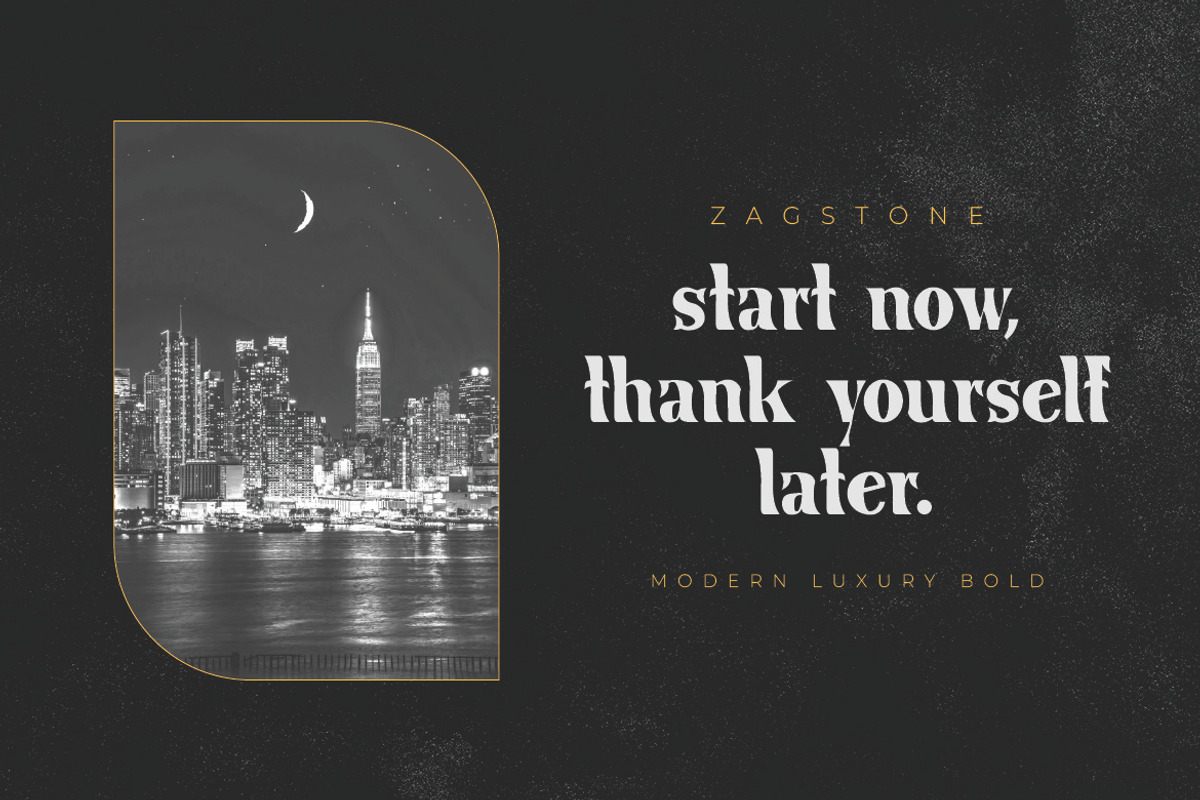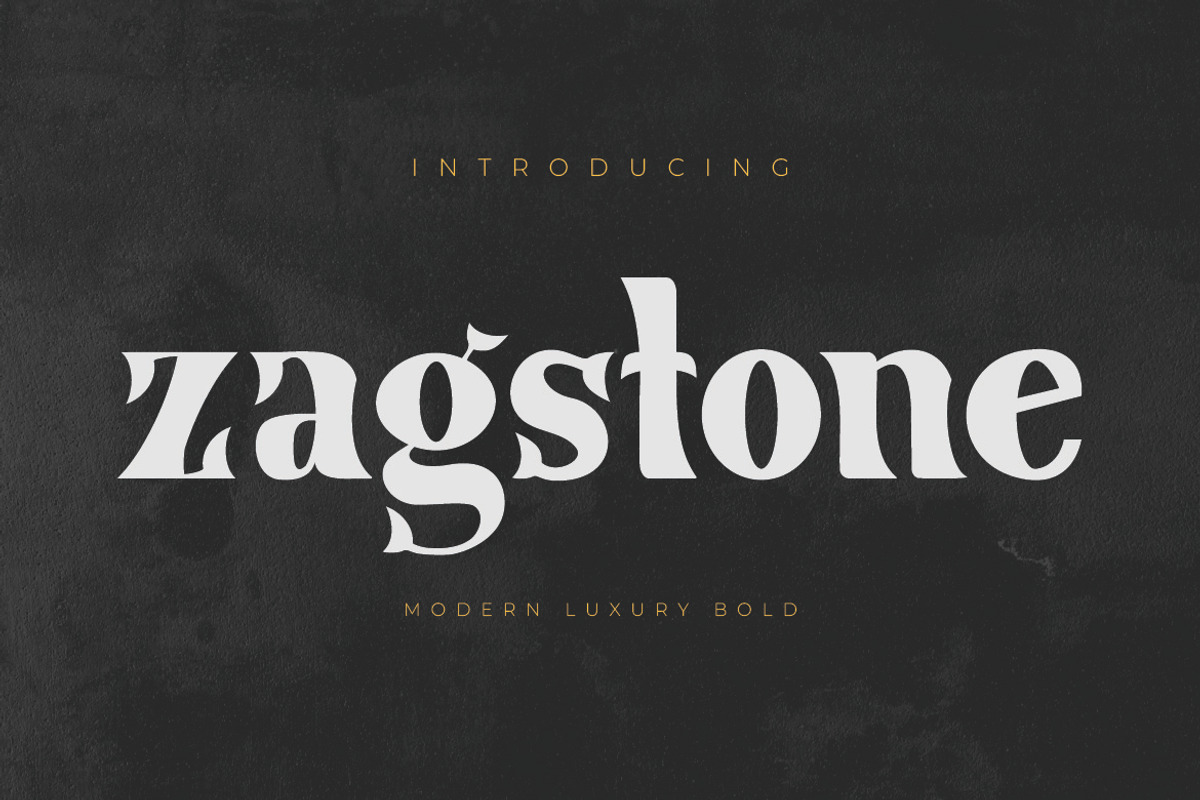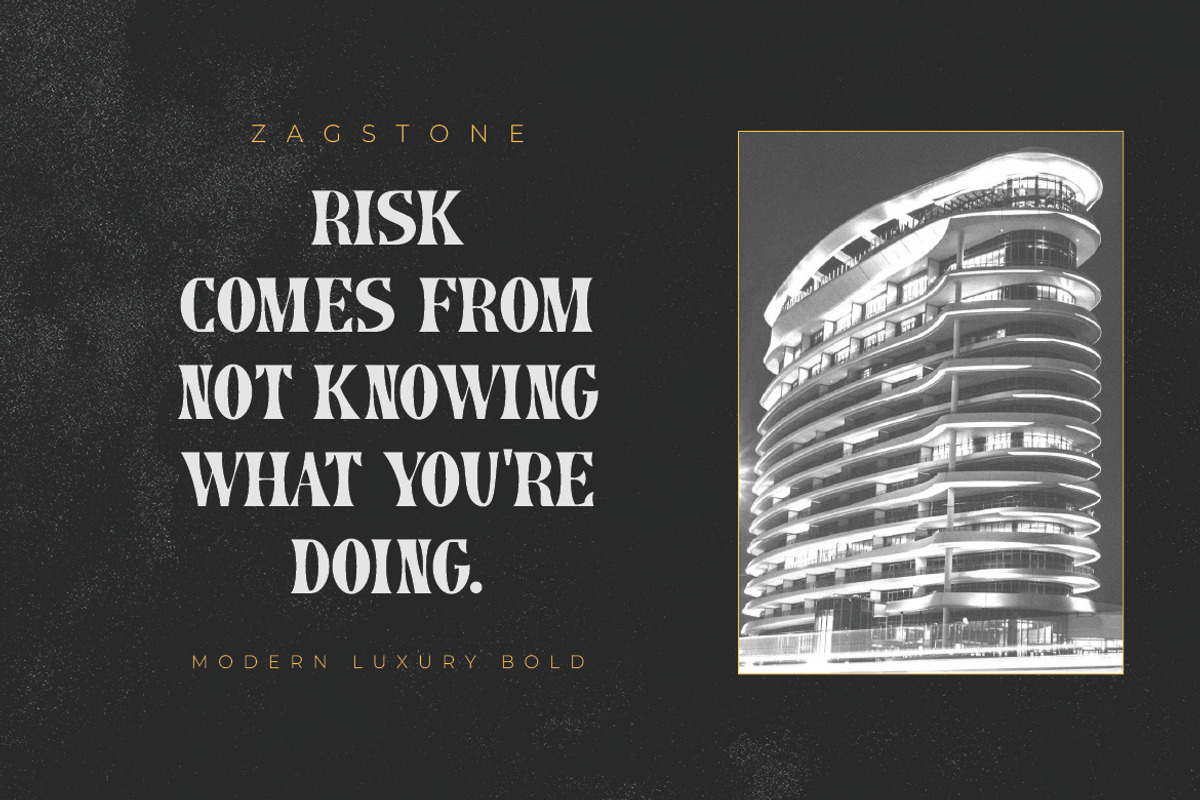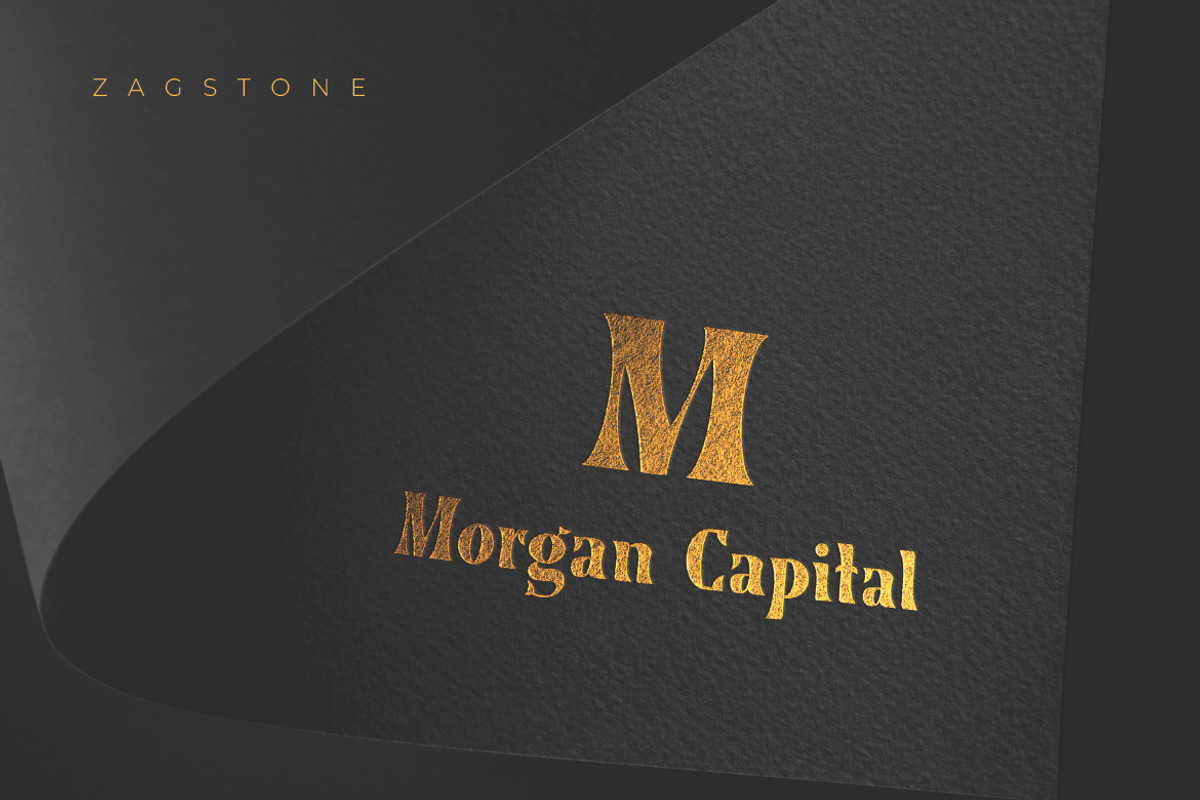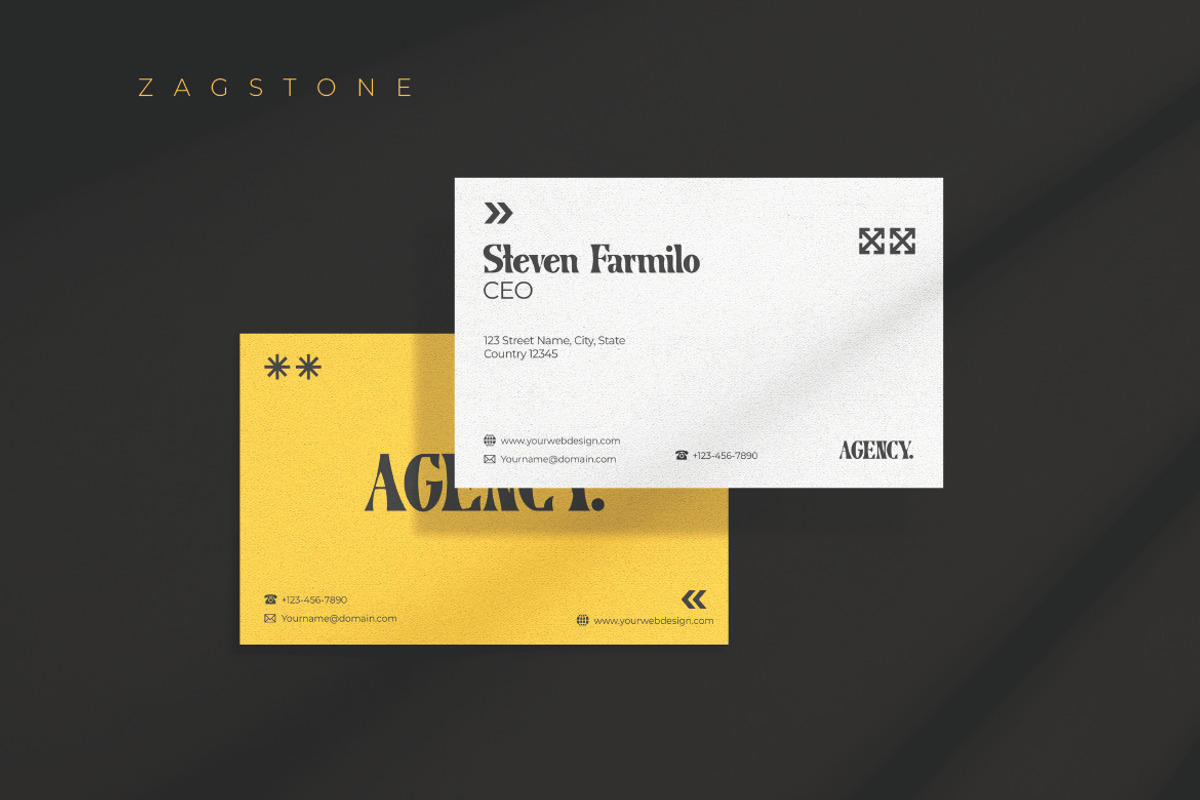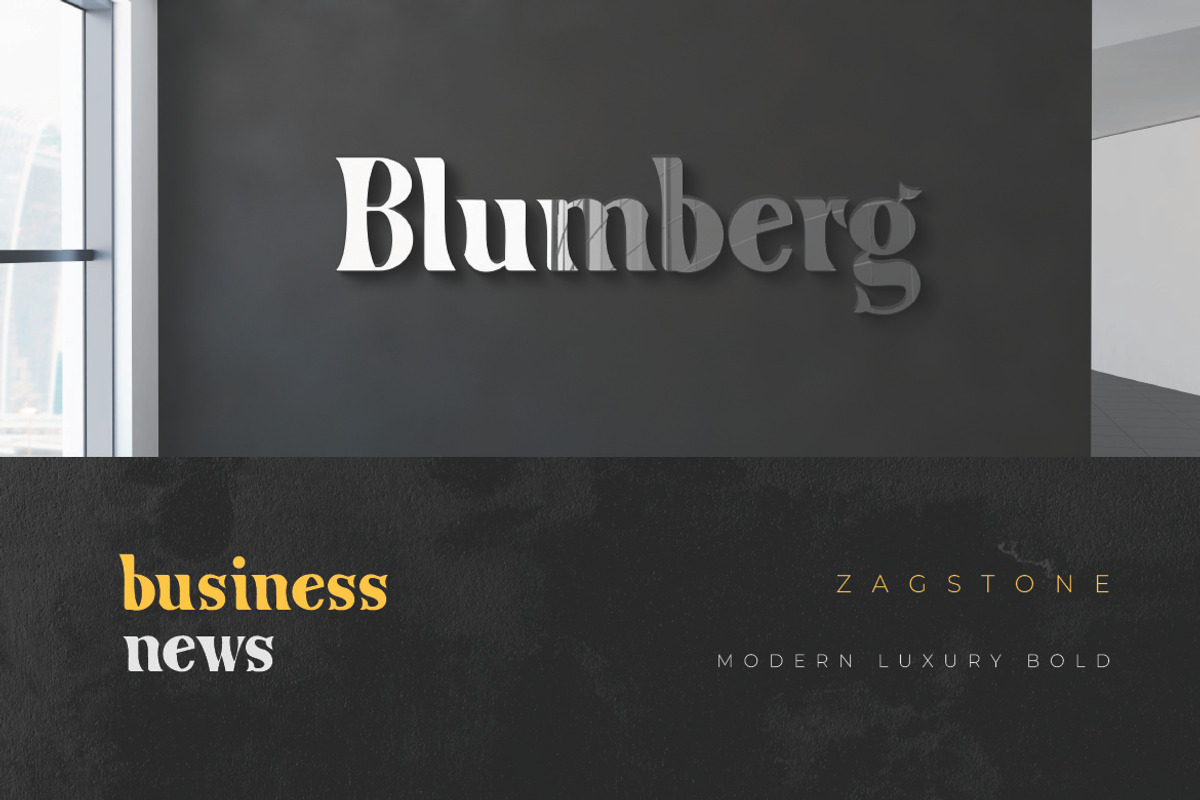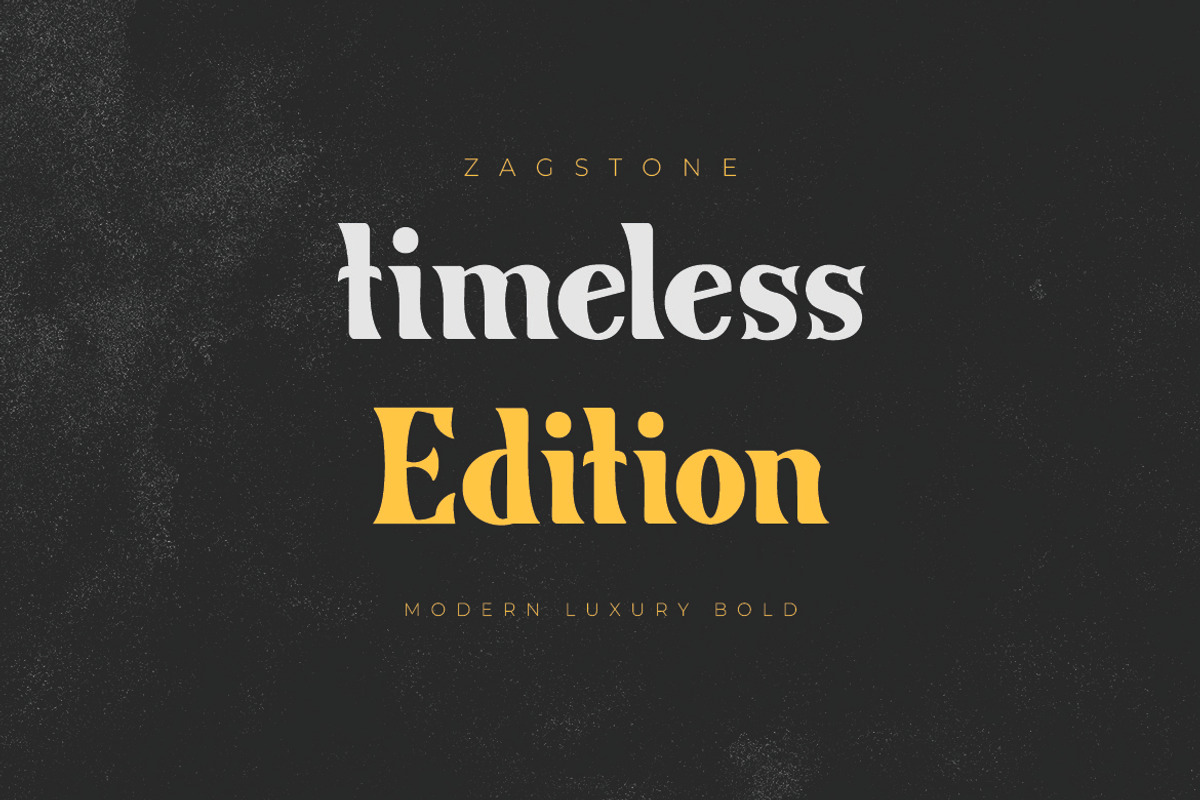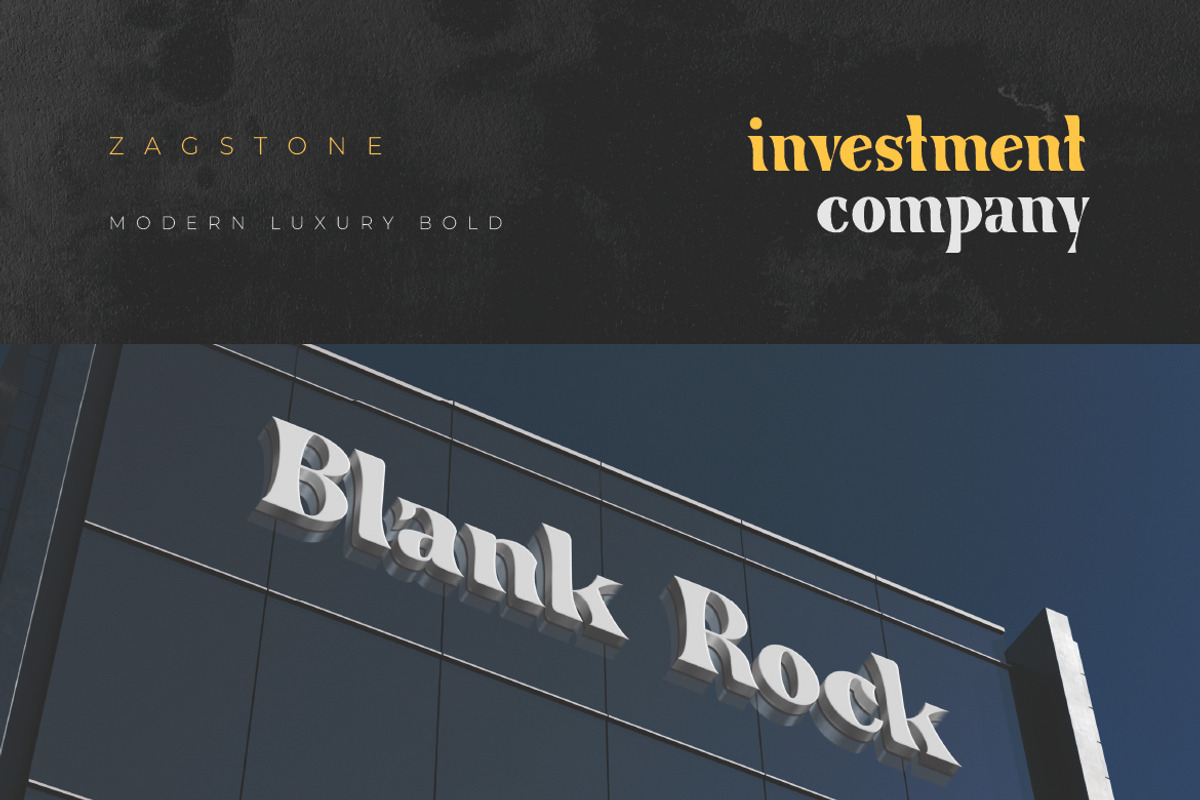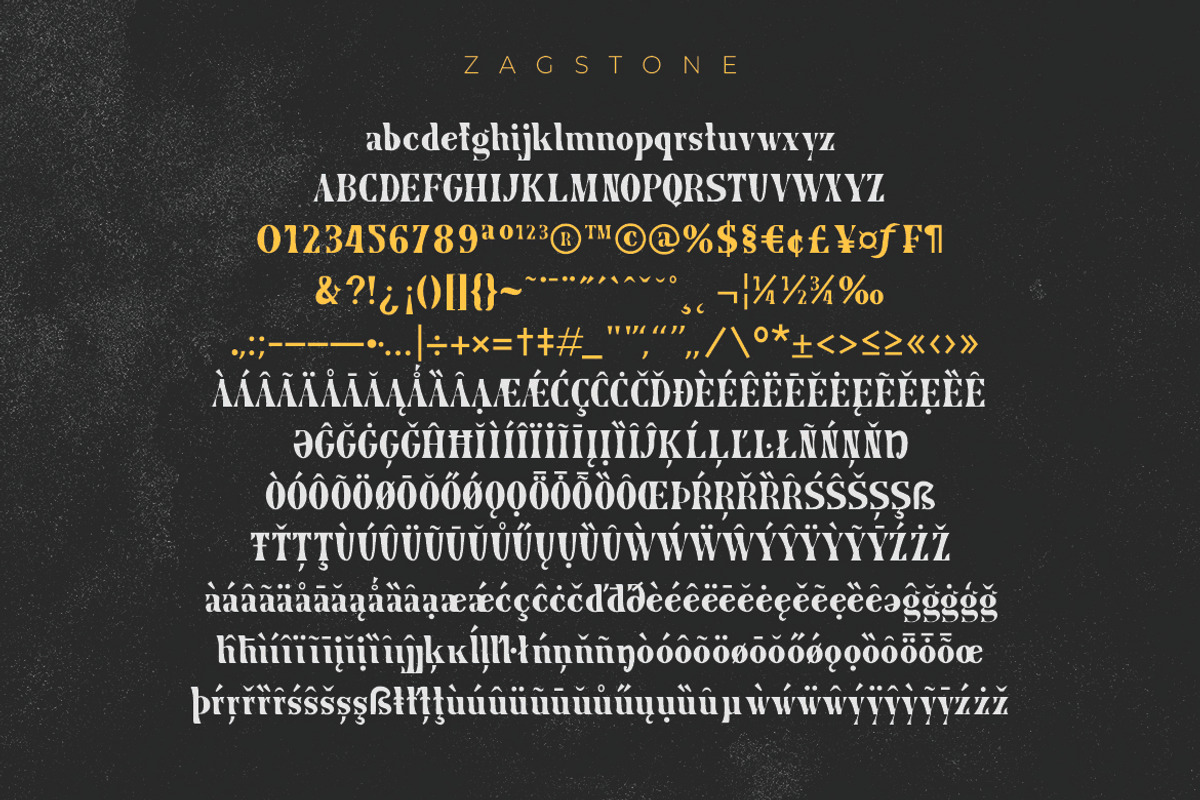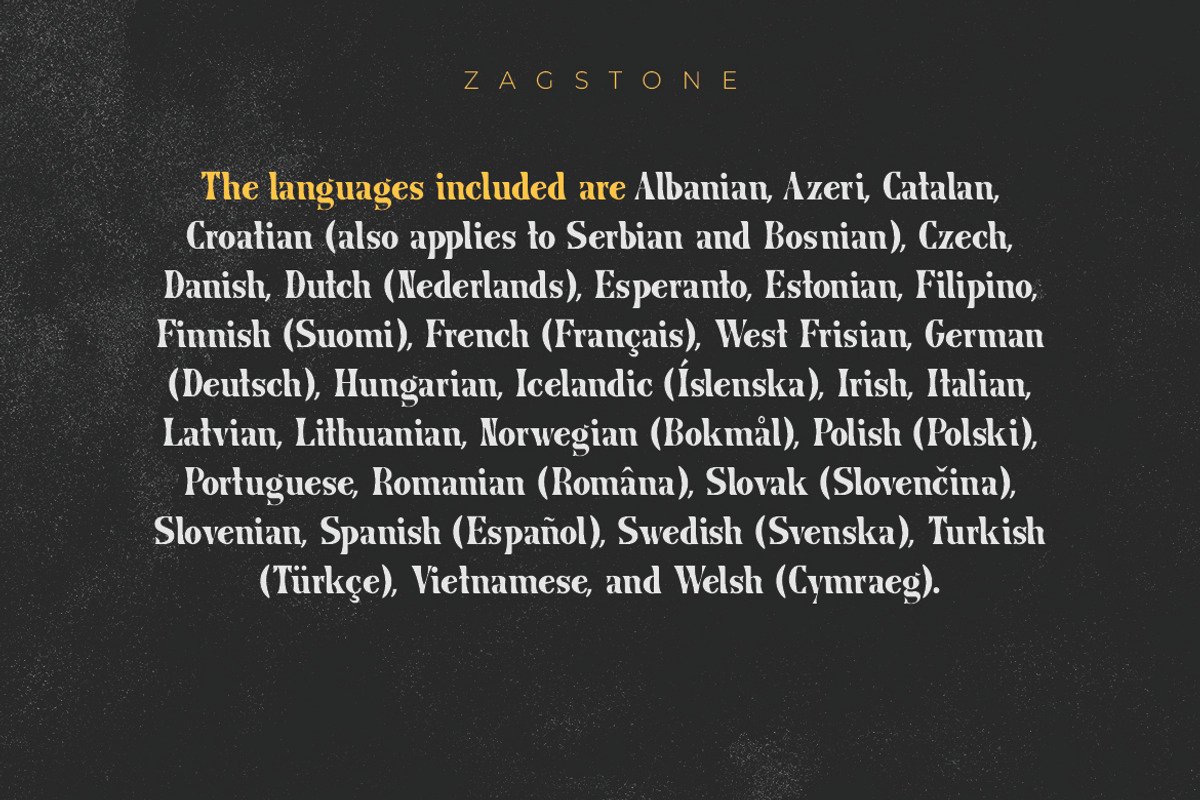
Zagstone - Modern Luxury Bold Serif
Introducing Zagstone, a modern luxury bold serif font designed to bring a timeless, elegant, and strong presence to any project. Its classic yet contemporary curves and bold weight make it a perfect choice for designs that need to convey authority, luxury, and sophistication. The unique letterforms are inspired by a blend of classic serif traditions and a modern, minimalist aesthetic.
Zagstone is ideal for a wide range of creative applications, including high-end branding, magazine layouts, sophisticated social media graphics, impactful headlines, and elegant logo designs. Its bold character ensures high legibility, making it suitable for both digital and print media, from corporate reports to luxury product packaging. The font’s versatility allows it to stand out on its own or complement other typefaces seamlessly.
This font includes uppercase and lowercase letters, numbers, punctuation, and extensive multilingual support. Whether you're a professional designer, a creative agency, or a freelancer, Zagstone provides a powerful typographic solution that helps your work communicate quality and professionalism. Elevate your brand identity and design projects with the distinctive style of Zagstone.